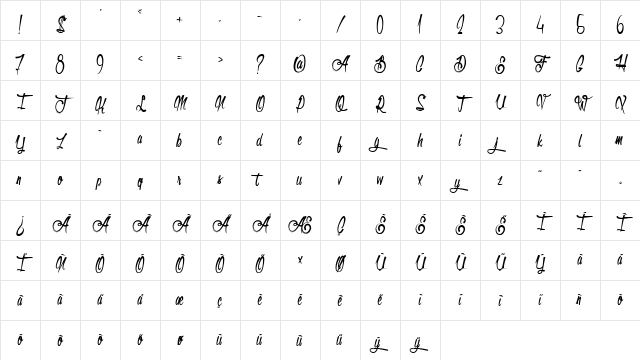
Complete Olympic Branding Regular glyph index. Displaying only characters natively supported by Olympic Branding Regular font.
Olympic Branding is a composed and adaptable typeface that performs quietly and consistently across a wide range of design contexts.